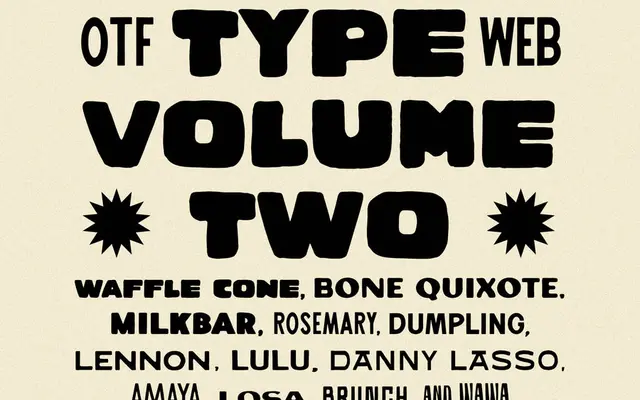
Type Volume Two
A bundle of twelve display-leaning typefaces from Taylor Penton, aimed at branding, packaging and social media work.
Twelve typefaces sold together at a single flat price, covering a range of expressive and display styles suited to brand identity, marketing materials and packaging. The collection includes Waffle Cone, Bone Quixote, Milkbar, Rosemary, Wawa, Dumpling, Lennon, Lulu!, Amaya, Losa, Danny Lasso and Brunch, with OTF desktop files and WOFF/WOFF2 webfonts included. A flat commercial licence covers individuals and teams under 50 employees with no seat or traffic limits.
A bundled collection of twelve typefaces spanning multiple styles and categories, sold as a single product; classified as display due to the decorative and expressive nature of the included fonts and their intended use in branding, marketing and social media.